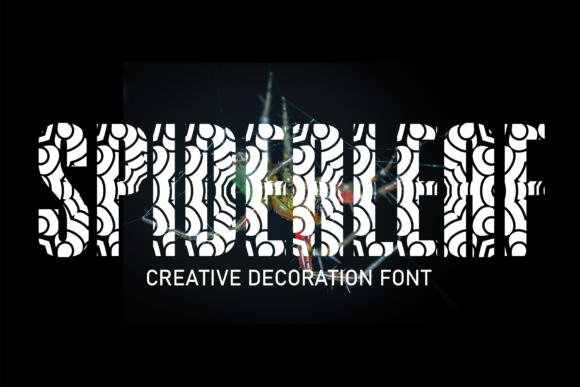
**Introducing Spider Leaf: The Ultimate Font for Bold and Edgy Designs**
Immerse yourself in the captivating world of Spider Leaf, a decorative font that embodies the essence of urban street culture. Unleash your creativity and make a statement with this extraordinary typeface, meticulously crafted to elevate your designs to new heights.
With Spider Leaf, you'll have the power to transform your visions into reality. Whether you're designing eye-catching streetwear apparel, creating captivating social media posts, or crafting unforgettable product packaging, this font is your ultimate weapon.
**A Font that Speaks Volumes**
Spider Leaf is more than just a collection of letters; it's a language that speaks to the bold and the daring. Its sharp angles and jagged edges evoke a sense of urban energy, while its flowing lines add a touch of fluidity and grace.
Imagine your designs adorned with the enigmatic presence of Spider Leaf. Your streetwear creations will exude an air of rebellion and style, while your social media posts will command attention with their edgy allure. Every product you design will become a testament to your fearless creativity.
**The Perfect Font for Every Occasion**
Spider Leaf's versatility knows no bounds. Whether you're creating invitations for a special event or designing labels for your handmade products, this font will add a touch of sophistication and flair. Its unique character makes it perfect for photography watermarks, giving your images an artistic edge.
**Experience the Spider Leaf Difference**
Join countless designers who have discovered the transformative power of Spider Leaf. Let your creativity soar as you explore the endless possibilities this font offers. Create designs that resonate with your audience, leaving a lasting impression that will turn heads and ignite conversations.